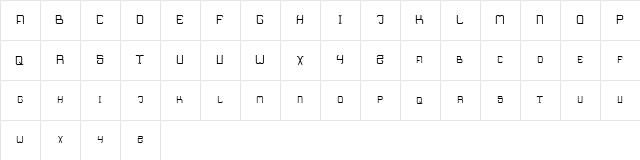
Moraz Regular
Design Context for Moraz Typeface
Moraz offers clean, dependable letterforms without strong stylistic allegiance, making it a practical choice for designers who need flexibility.